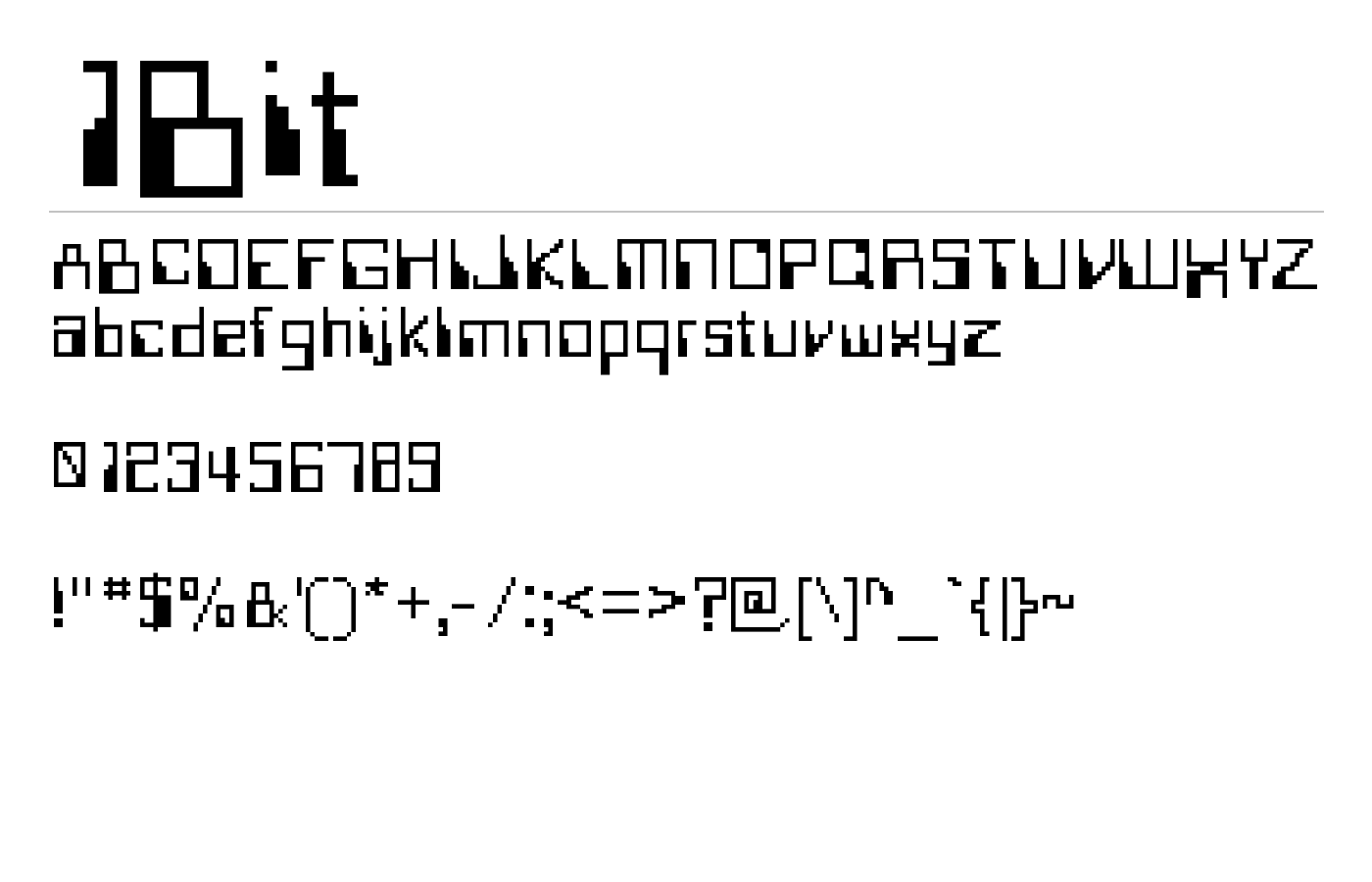
1Bit Font is a pixelated, monospaced sans serif font that embraces a retro, digital aesthetic reminiscent of early computer and video game text. Its blocky, geometric letterforms with low contrast and sharp edges give it a techy, old-school video game feel, making it ideal for pixel art projects, digital interfaces, or designs that want to evoke a vintage computing vibe. This font works best for headlines, logos, or branding that aims to capture nostalgia and a quirky, futuristic spirit.
1Bit Font
About 1Bit Font